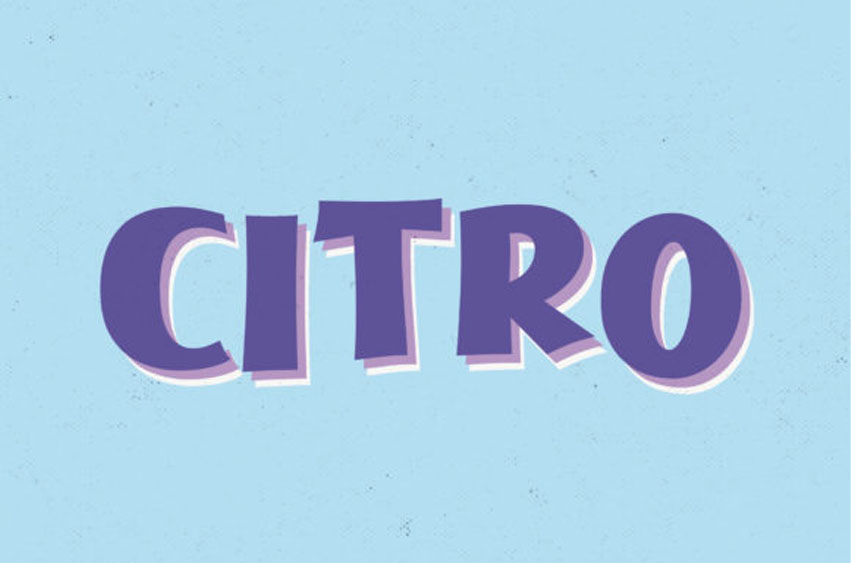
Citro Font is a cool, thick lettered and bold display font.
Whether you are using it for cartoon-related designs, children’s games, quotes, titles, brand names, book covers, posters, or just any creation that requires a touch of joy, this font is a great choice.